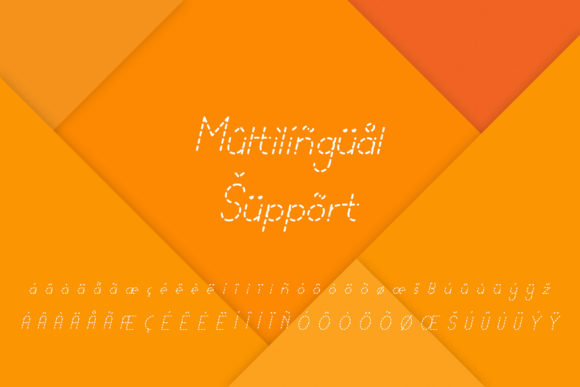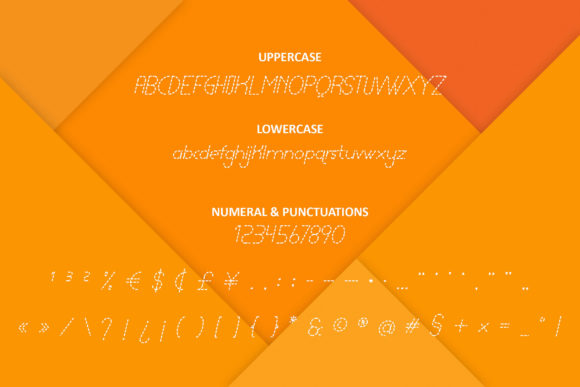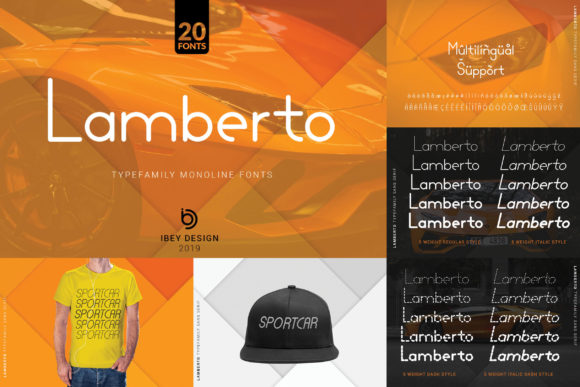
Introduction to Lamberto Light Italic Dash Font
Have you ever found yourself staring at a blank canvas, desperately searching for the perfect font to bring your creative project to life? We’ve all been there – the frustration of scrolling through endless options, only to settle for something that just doesn’t quite fit. But what if I told you there’s a font that could change everything?
Enter the Lamberto Light Italic Dash Font, a game-changing monoline display font that’s taking the design world by storm. With its incredibly bold and contemporary approach to classic lettering, this high-quality font is the ultimate design resource for creatives who crave something unique and eye-catching. Whether you’re working on a free download project or a high-end commercial campaign, Lamberto Light Italic Dash Font is sure to make a lasting impression.
One of the standout features of this versatile font is its transparent background, making it the perfect choice for designers who want to add a touch of sophistication to their designs without the clutter. With its modern aesthetic and endless possibilities, Lamberto Light Italic Dash Font is an absolute must-have for any serious designer looking to elevate their creative game.
Key Features of Lamberto Light Italic Dash Font
- High-quality, professional font design suitable for creative projects, including logos, branding, and typography.
- Includes a transparent background, allowing for easy layering and customization in design software.
- Features a unique, elegant design with a light italic style, adding a touch of sophistication to any creative project.
Honest Review: Lamberto Light Italic Dash Font
I recently stumbled upon the Lamberto Light Italic Dash Font while searching for a high-quality design resource for a creative project. I was excited to give it a try, and overall, I’m quite pleased with the results. ✨
The font’s light, italic style adds a touch of sophistication to any text, making it perfect for use in design projects that require a more refined look. I particularly appreciated the free download option, which allowed me to test the font without committing to a purchase. Additionally, the transparent background feature made it easy to work with in design software.
- High-quality font design with a unique, italic style
- Transparent background feature for easy design integration
- ⚠️ Limited character set and language support
- ⚠️ Not ideal for use in large block of text, due to its light and delicate style
Overall, I’m impressed with the Lamberto Light Italic Dash Font, and I would recommend it to designers looking for a unique, high-quality font for their creative projects. With a few limitations in mind, I believe this font can be a valuable addition to any design resource library.
How to Use Lamberto Light Italic Dash Font
To get the most out of the Lamberto Light Italic Dash Font, use it in conjunction with a transparent background to create a high-quality, visually appealing design. This font is ideal for creative projects that require a touch of elegance and sophistication.
The Lamberto Light Italic Dash Font is suitable for a variety of design projects, including:
Wedding invitations, stationery, and event materials
Branding materials, such as logos and business cards
Editorial and publishing projects, including magazines and books